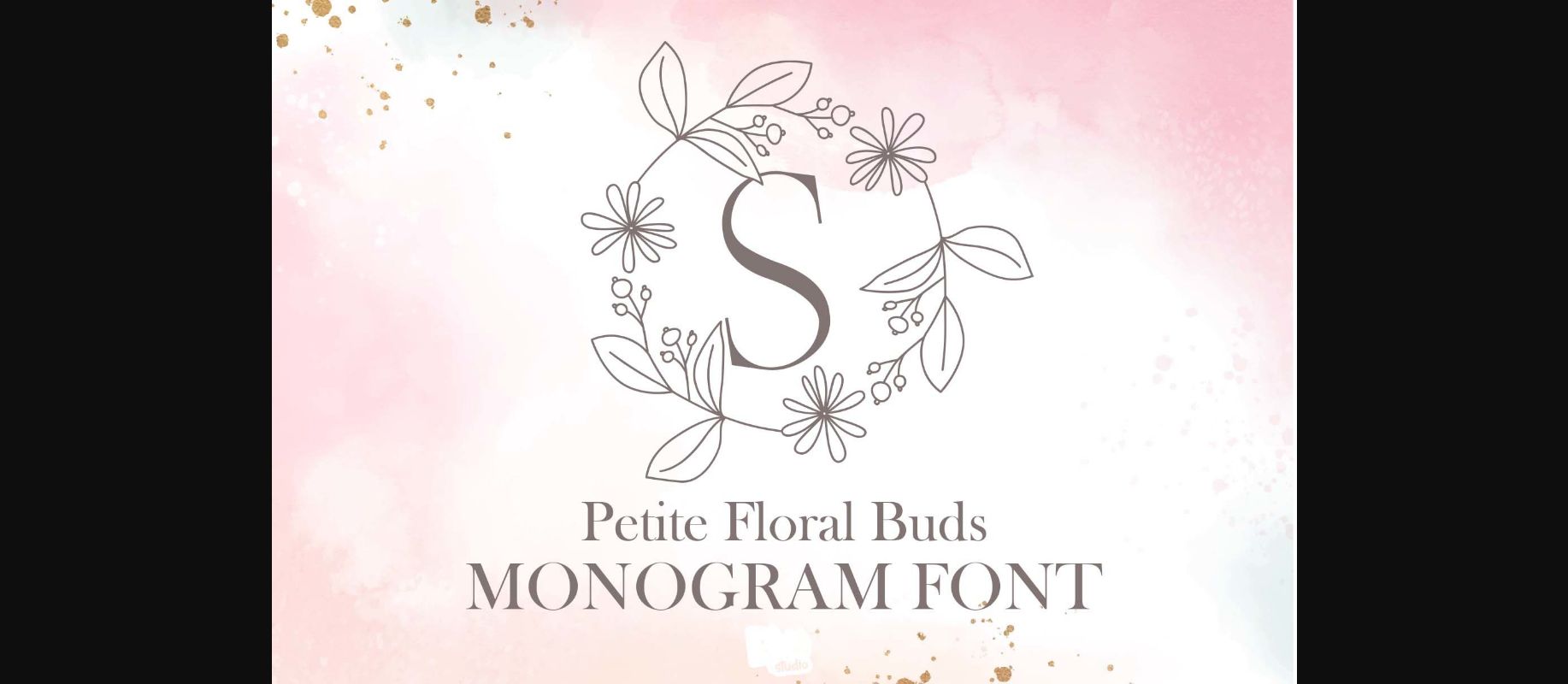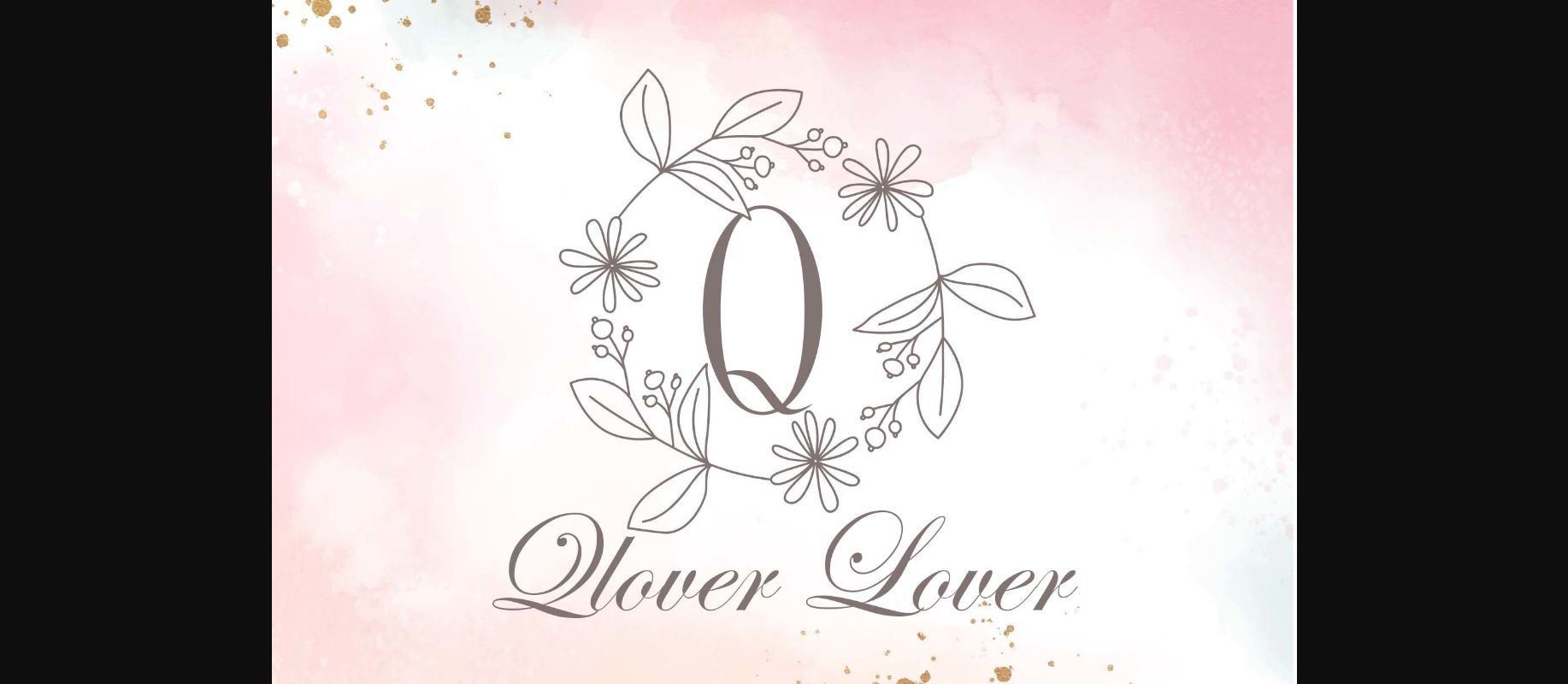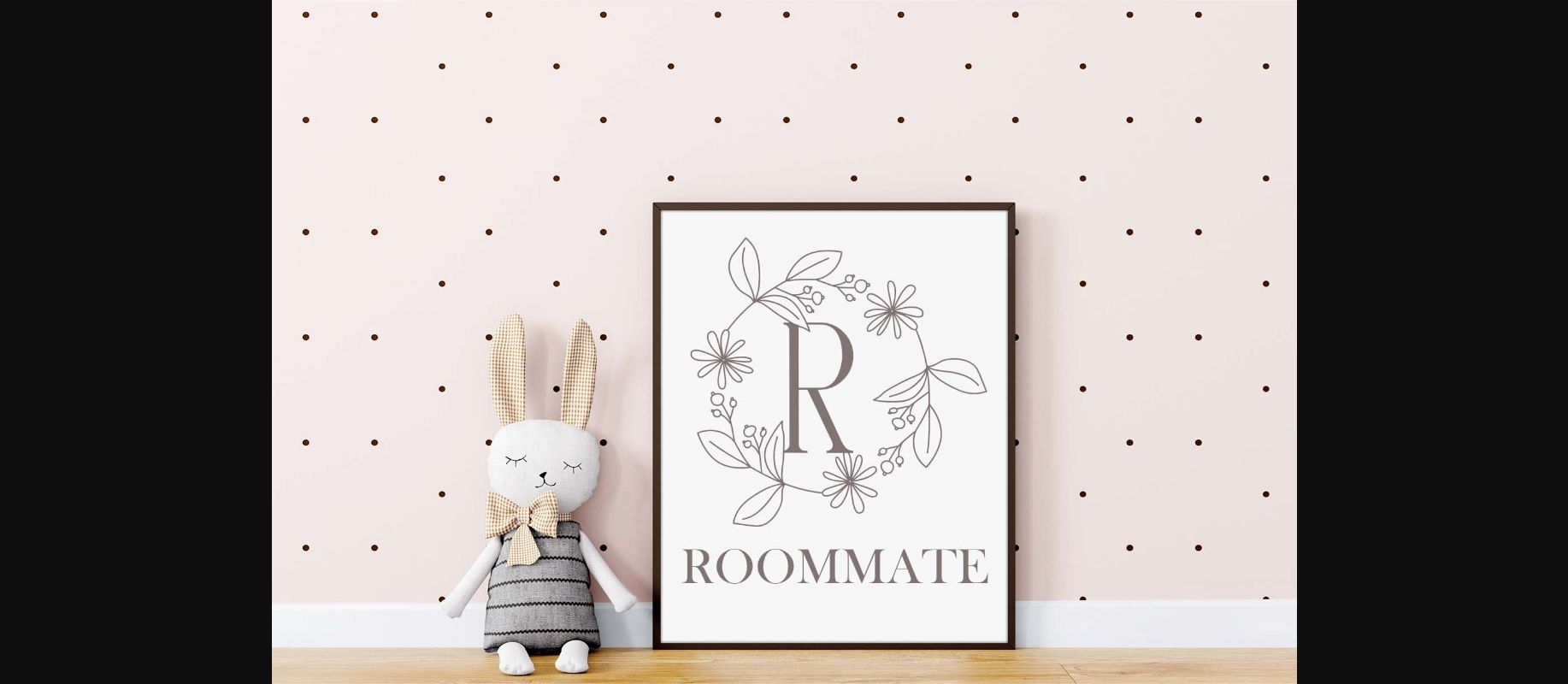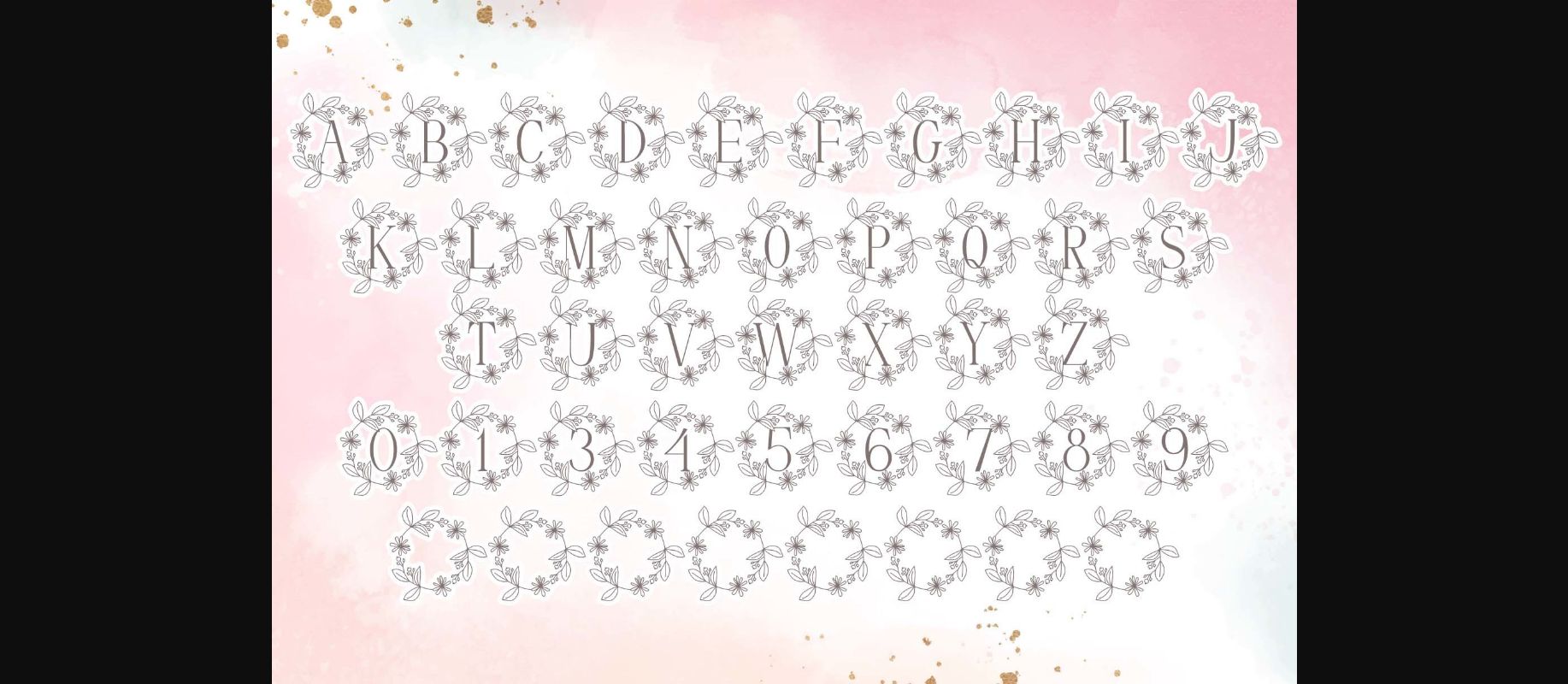
Petite Floral Buds Monogram Font
About Petite Floral Buds Monogram Font
Petite Floral Buds Monogram is a highly detailed and beautiful decorative font. Add this lovely-looking font to each of your love letters, wedding invitations, or favorite design ideas, and you will be astounded by the outcome.